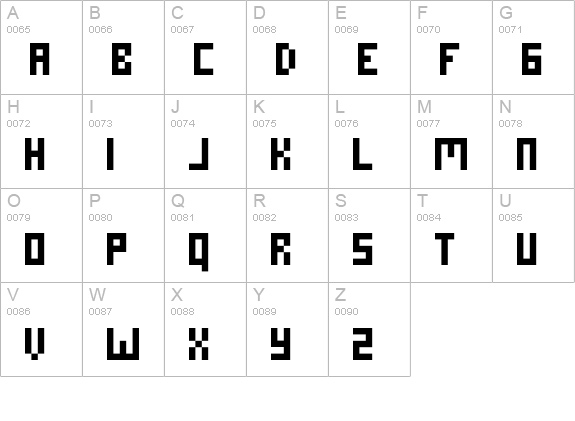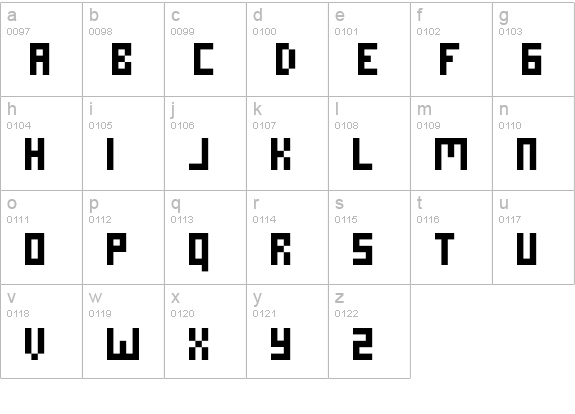
ROTORkeff Font Details
Introducing ROTORkeff font, a sleek and modern typeface designed to make a bold statement in any project. With its unique blend of sharp angles and geometric shapes, ROTORkeff exudes a sense of strength and sophistication. This versatile font is perfect for headlines, logos, posters, and more. What's even better is that ROTORkeff is available for free download at FontsMarket.com. So you can easily add this eye-catching font to your design arsenal without breaking the bank. Don't miss out on the opportunity to elevate your designs with ROTORkeff font today!